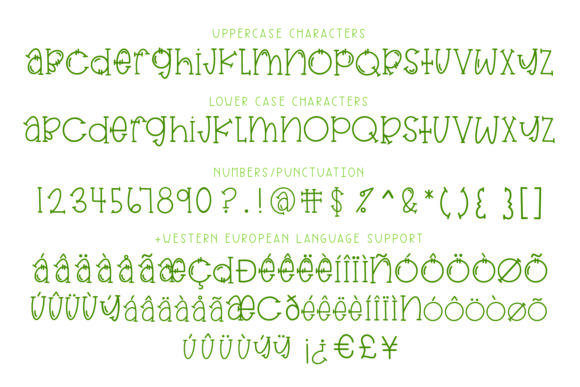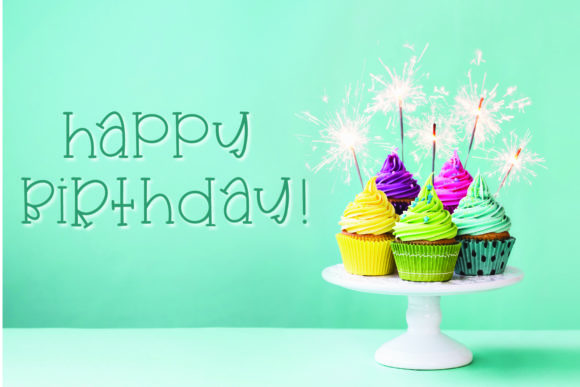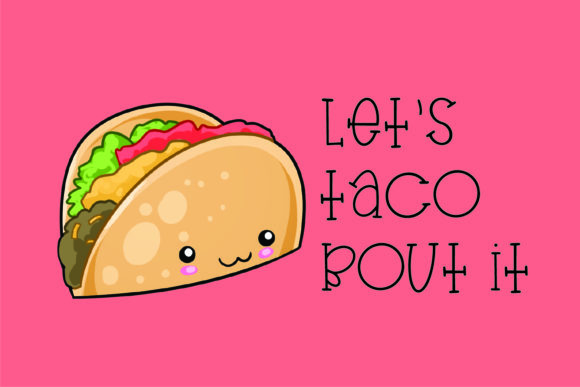
Dill Pickle Font: Add a Snappy Fun Twist to Your Designs!
Are you tired of using the same old fonts in your designs? Look no further than the Dill Pickle font! This snappy, fun font is perfect for adding a quirky touch to your celebrations, crafts, and creative projects. With two versions accessed through upper and lowercase characters, Dill Pickle is a versatile and playful font that’s sure to delight designers and crafters alike.
What Makes Dill Pickle Font So Special?
The Dill Pickle font is a unique and eye-catching font that’s designed to add a dash of fun and whimsy to your designs. Its quirky, hand-drawn style makes it perfect for creating festive and celebratory designs, such as party invitations, holiday cards, and DIY crafts. Whether you’re a designer looking for a fresh font to add to your collection or a crafter seeking a fun and creative way to personalize your projects, Dill Pickle is the perfect choice.
Key Features of Dill Pickle Font
- Two versions in one font: Upper and lowercase characters offer two distinct styles in a single font, giving you flexibility and variety in your designs.
- Snappy and fun: Dill Pickle’s playful style is perfect for creating lively and engaging designs that capture the spirit of celebration.
- Quirky and hand-drawn: The font’s unique, hand-drawn style gives it a charming and whimsical feel that’s sure to stand out.
- Perfect for celebrations: From birthday parties to holiday gatherings, Dill Pickle is the ideal font for creating festive and memorable designs.
Dill Pickle Font in Crafting and DIY Projects
Dill Pickle font is not just for designers! Crafters and DIY enthusiasts can also use this fun font to add a personal touch to their projects. Whether you’re creating handmade cards, decorating party favors, or designing custom signs, Dill Pickle is the perfect font to add a playful and whimsical touch.
Tips and Tricks for Getting the Most Out of Dill Pickle Font
- Mix and match: Combine Dill Pickle with other fonts and design elements to create a unique and eye-catching design.
- Experiment with colors: Try pairing Dill Pickle with bright, bold colors to create a festive and celebratory design.
- Add textures and graphics: Incorporate textures and graphics to give your design a more tactile and visually interesting feel.
- Play with sizes: Use Dill Pickle in different sizes to create visual interest and hierarchy in your design.
In conclusion, Dill Pickle font is a snappy, fun, and quirky font that’s perfect for designers and crafters looking to add a playful touch to their designs. With its two versions accessed through upper and lowercase characters, Dill Pickle offers flexibility and variety in a single font. Whether you’re creating festive designs, DIY crafts, or simply looking for a fresh font to add to your collection, Dill Pickle is the perfect choice. So why not give Dill Pickle a try and add a dash of fun and whimsy to your designs?